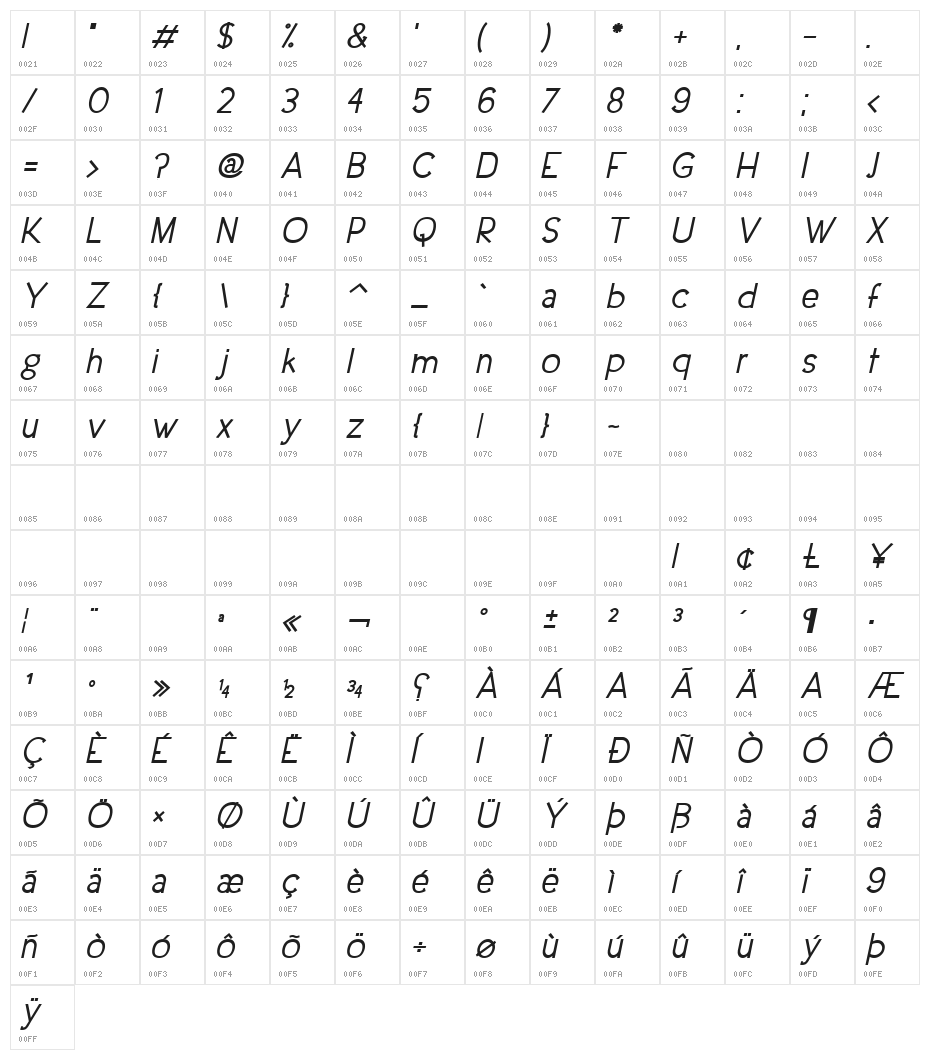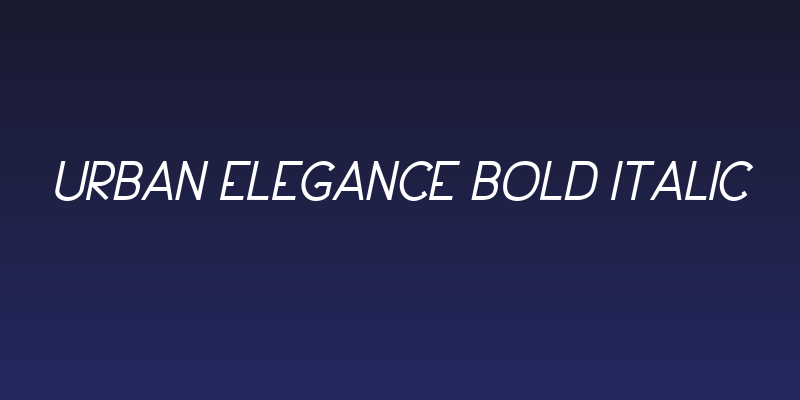
Urban Elegance Bold Italic Font
Urban Elegance Bold Italic Description
This font exudes a modern and sleek aesthetic, characterized by its bold and italicized form. The letters are slightly slanted, giving a dynamic and forward-moving appearance. The strokes are consistent in thickness, providing a uniform look across all characters. The uppercase letters are tall and commanding, while the lowercase letters maintain a balanced and approachable feel. The numerals are clear and easy to read, matching the overall style of the alphabet. Special characters are well-integrated, maintaining the font's cohesive design. This font is versatile, suitable for a variety of design projects that require a contemporary and stylish touch.